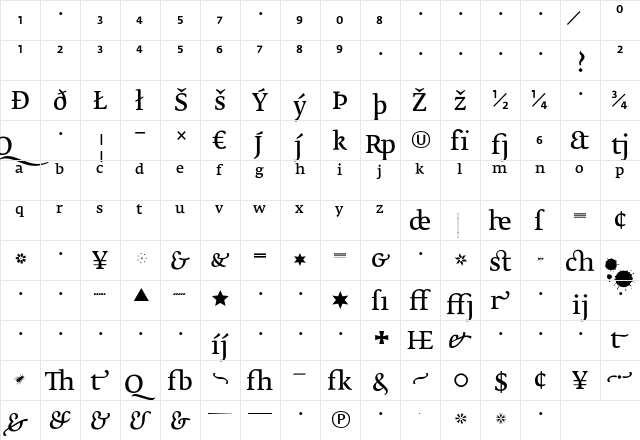
Fedra Serif B Normal Font Preview
Fedra Serif B Normal
Fedra Serif B Normal Font Details
Design Context for Fedra Serif B Typeface
Fedra Serif B carries the refined structure of traditional serif typography, with bracketed terminals and considered proportions that communicate credibility and craft.